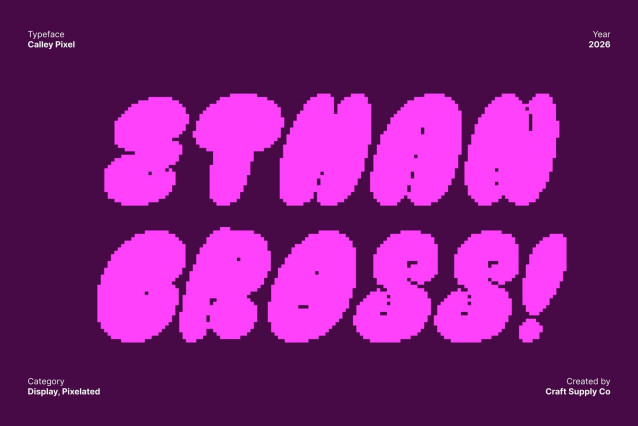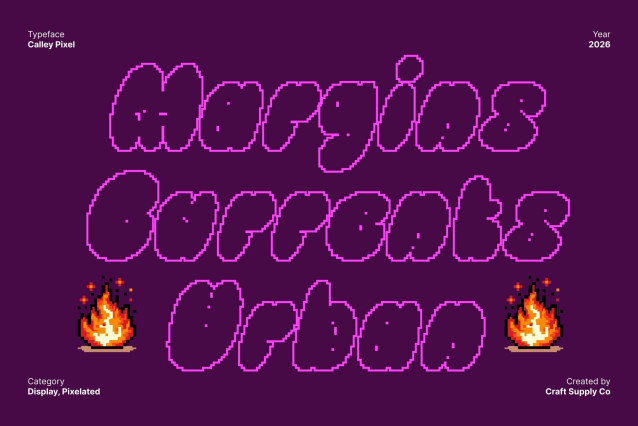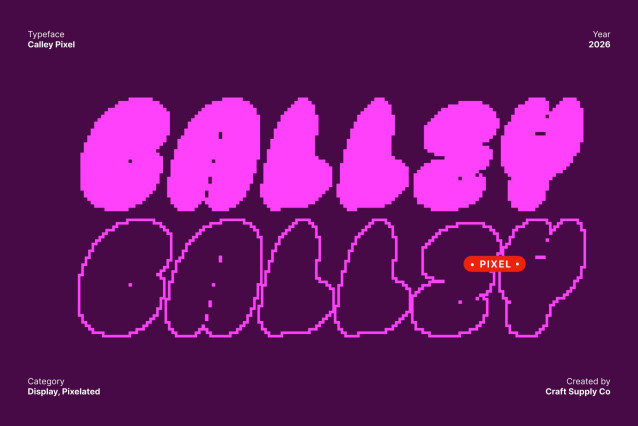
Calley Pixel Font – This is a lively display font inspired by the round, buoyant shapes of balloons. Its soft, rounded forms and dynamic curves create a playful, carefree aesthetic that brings energy and joy to any design. The pixel detailing adds a subtle digital twist, enhancing its modern, urban appeal.
Graffiti Edge with Pixel Flair
Embracing the expressive nature of graffiti, this font features bold, flowing strokes that command attention. The pixel influence adds texture and contemporary charm, giving the font an eye-catching urban style while maintaining a sense of movement and spontaneity.
Bubbly Aesthetic for Fun Projects
With its cheerful curves and whimsical character, this font is perfect for creative projects that require a vibrant and engaging look. Ideal for posters, invitations, logos, social media graphics, and playful branding, this font injects a sense of fun and excitement into every design.
Joyful and Memorable Typography
This font combines bubbly forms, graffiti-inspired energy, and pixel-enhanced detailing to create a font that feels lively and unique. Its playful personality ensures designs stand out with charm, whimsy, and contemporary digital flair perfect for projects that aim to delight and entertain audiences.